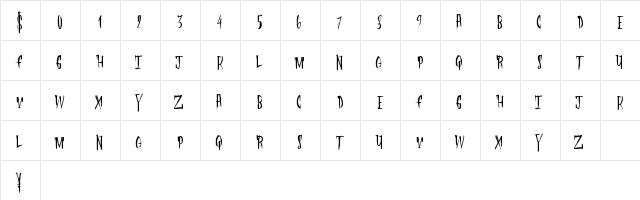
FleshDigster Regular
| Foundry | Xerographer Fonts |
| Designer | Max Infeld |
Design Context for FleshDigster Typeface
FleshDigster is a composed and adaptable typeface that performs quietly and consistently across a wide range of design contexts.